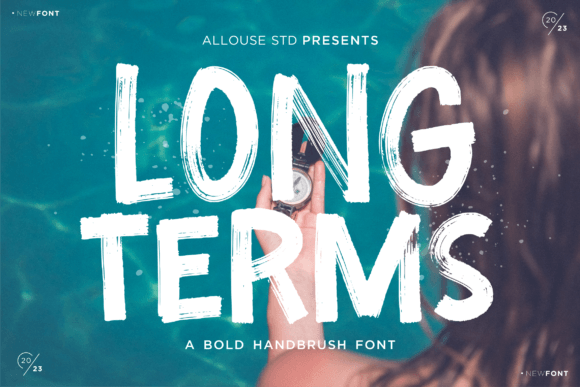
In a world craving uniqueness, meet Longterms Font - the display font poised to transform your creative expressions into captivating masterpieces. Crafted by the visionary artists at allouse.studio, Longterms Font is your ticket to audacious designs that leave an indelible mark.
With its bold and assertive strokes, Longterms Font commands attention like a maestro leading an orchestra of pixels. Its unwavering presence stands tall on product packaging, branding projects, magazines, and social media platforms, refusing to blend into the mundane. Longterms Font is the ultimate choice for those seeking a font that breaks the mold and ignites the imagination.
Unleash the power of Longterms Font and witness the transformation of ordinary text into captivating art. Watch as your words dance across the screen or leap off the page, captivating audiences with their newfound elegance and sophistication. Longterms Font is not merely a font; it's a gateway to a realm where creativity reigns supreme.
Dive into the boundless possibilities of Longterms Font and discover a font crafted for the modern era. Whether you're a seasoned designer seeking to elevate your projects or a creative enthusiast yearning to make a statement, Longterms Font is your steadfast companion. Its versatility knows no bounds, adapting seamlessly to a myriad of design aesthetics, from classic and timeless to contemporary and edgy.
Visualize the impact of Longterms Font on your next project. Imagine your designs radiating an aura of sophistication, grabbing attention effortlessly, and sparking conversations wherever they go. Longterms Font is the key to unlocking your creative potential, turning your visions into tangible realities that resonate with your audience.
Step into the spotlight with Longterms Font and let your creativity shine brighter than ever before. Embrace the power of individuality and make a lasting impression with every design you create. Longterms Font is not just a font; it's a declaration of your artistic prowess, a testament to your unique style, and an invitation for others to immerse themselves in your creative journey.